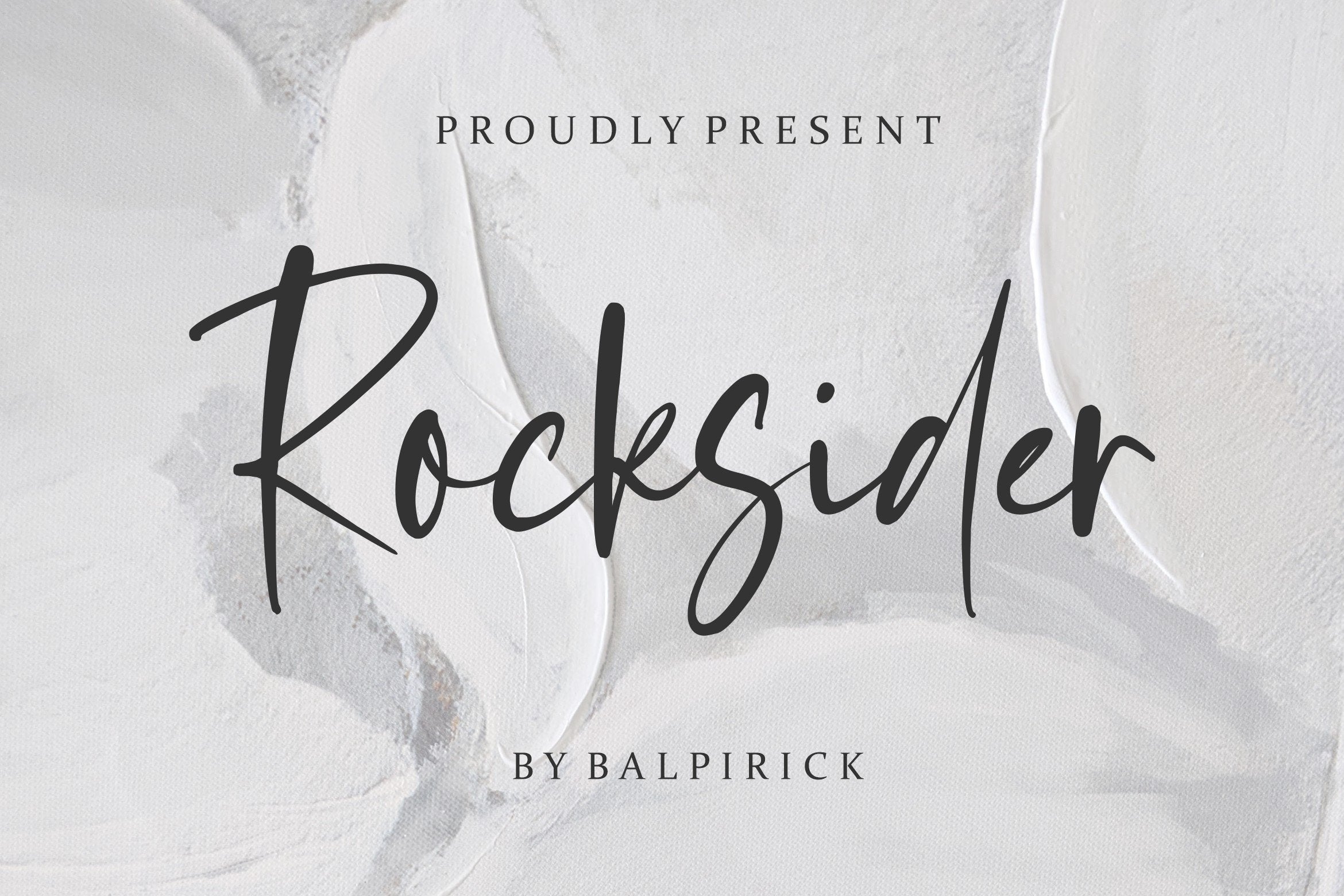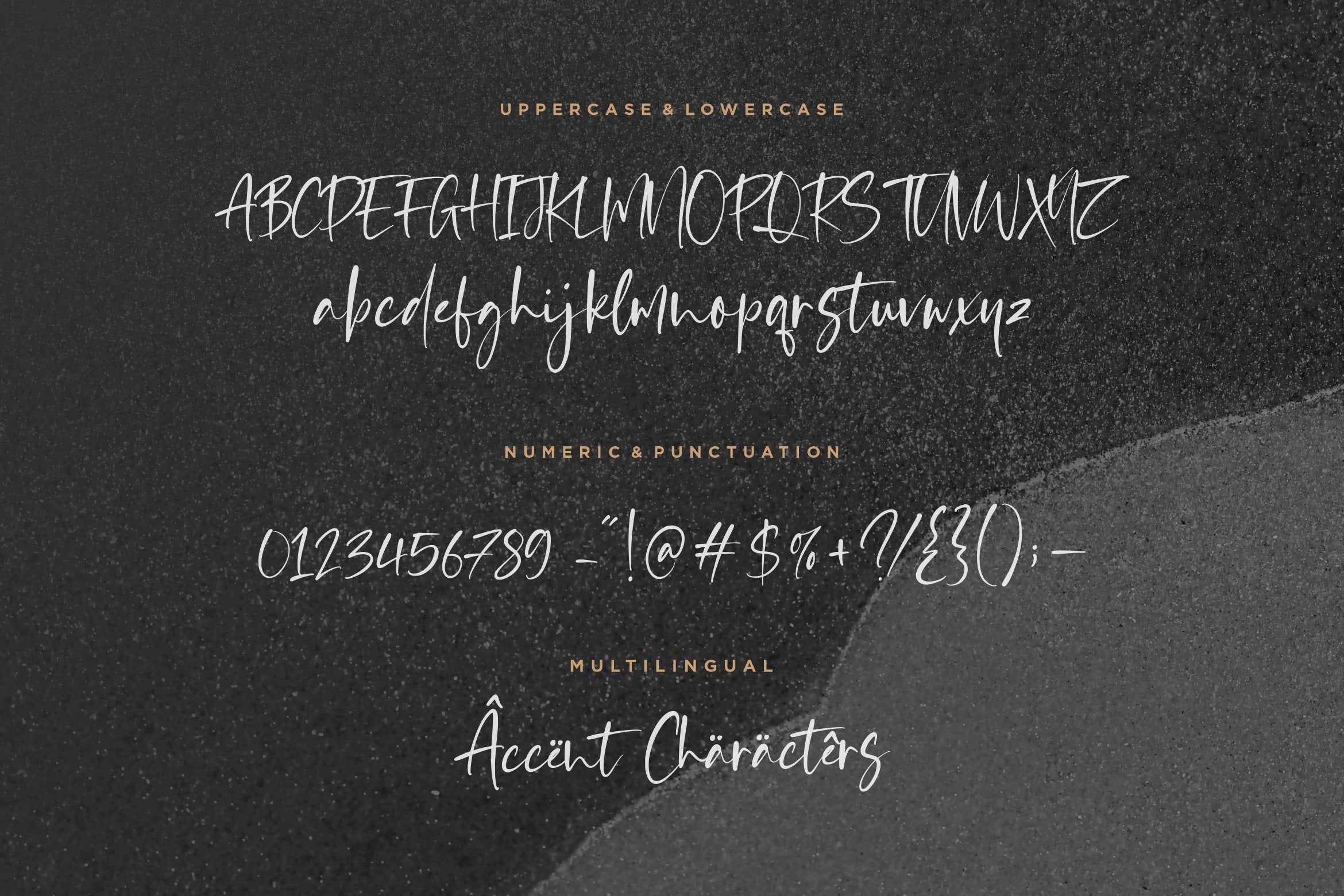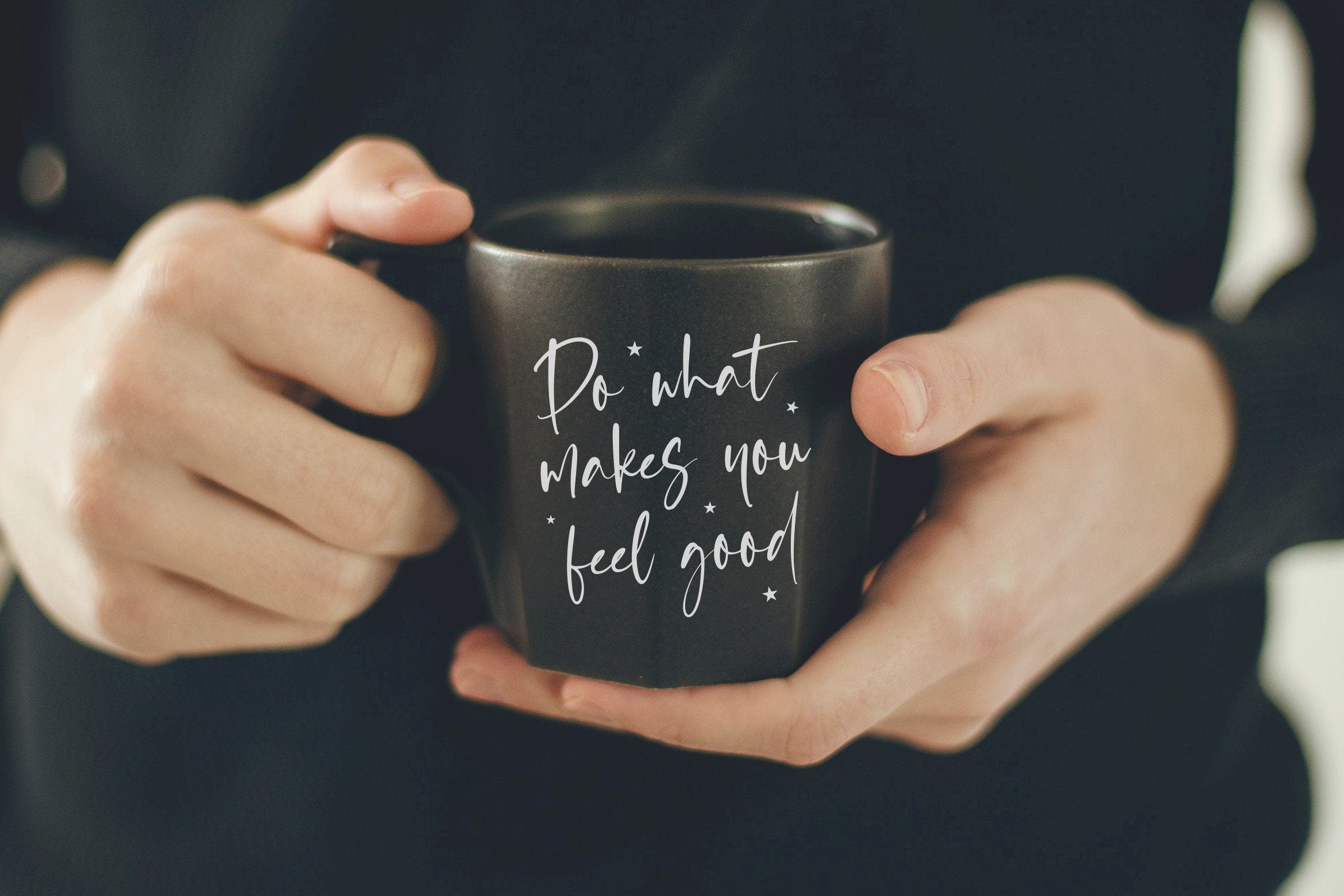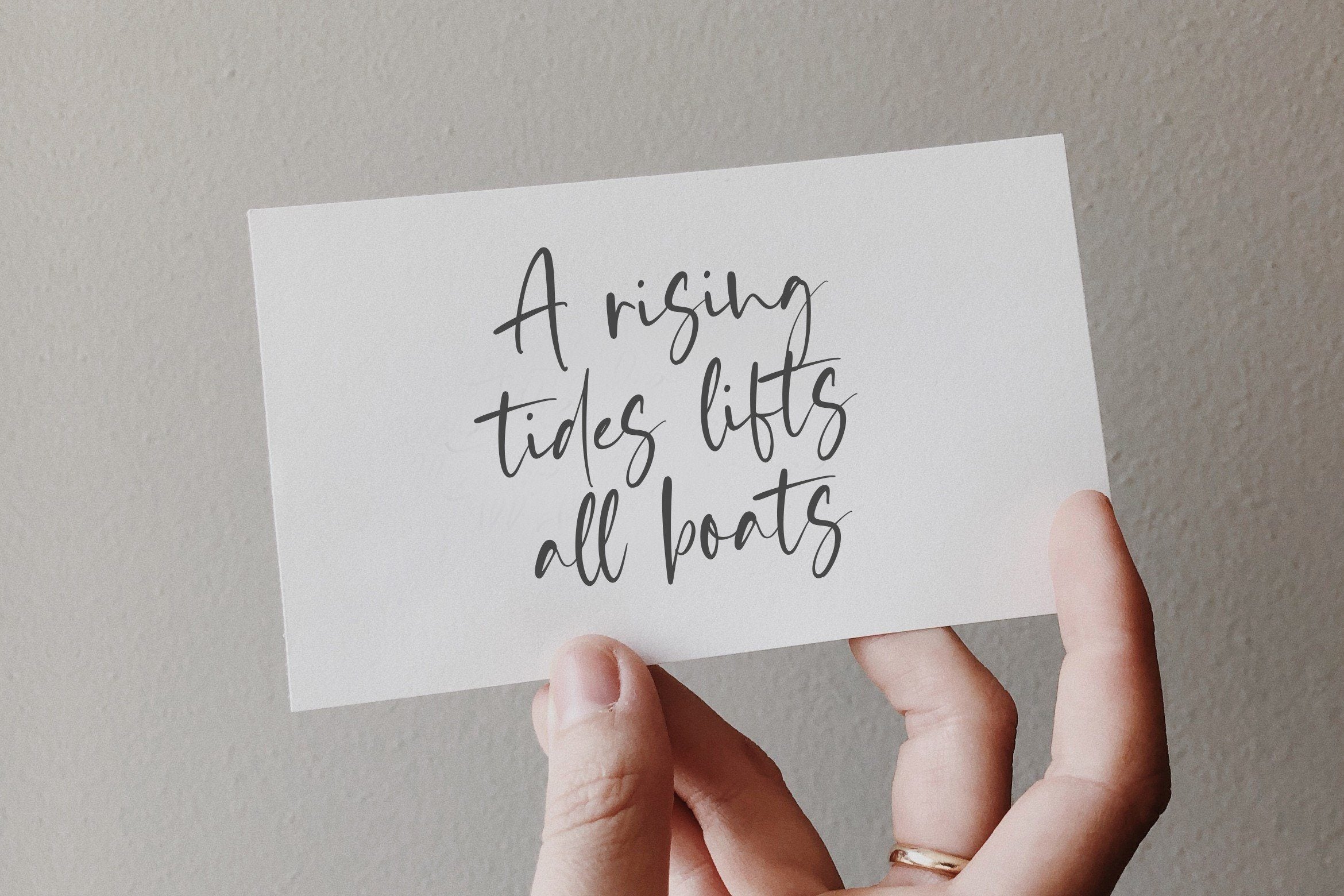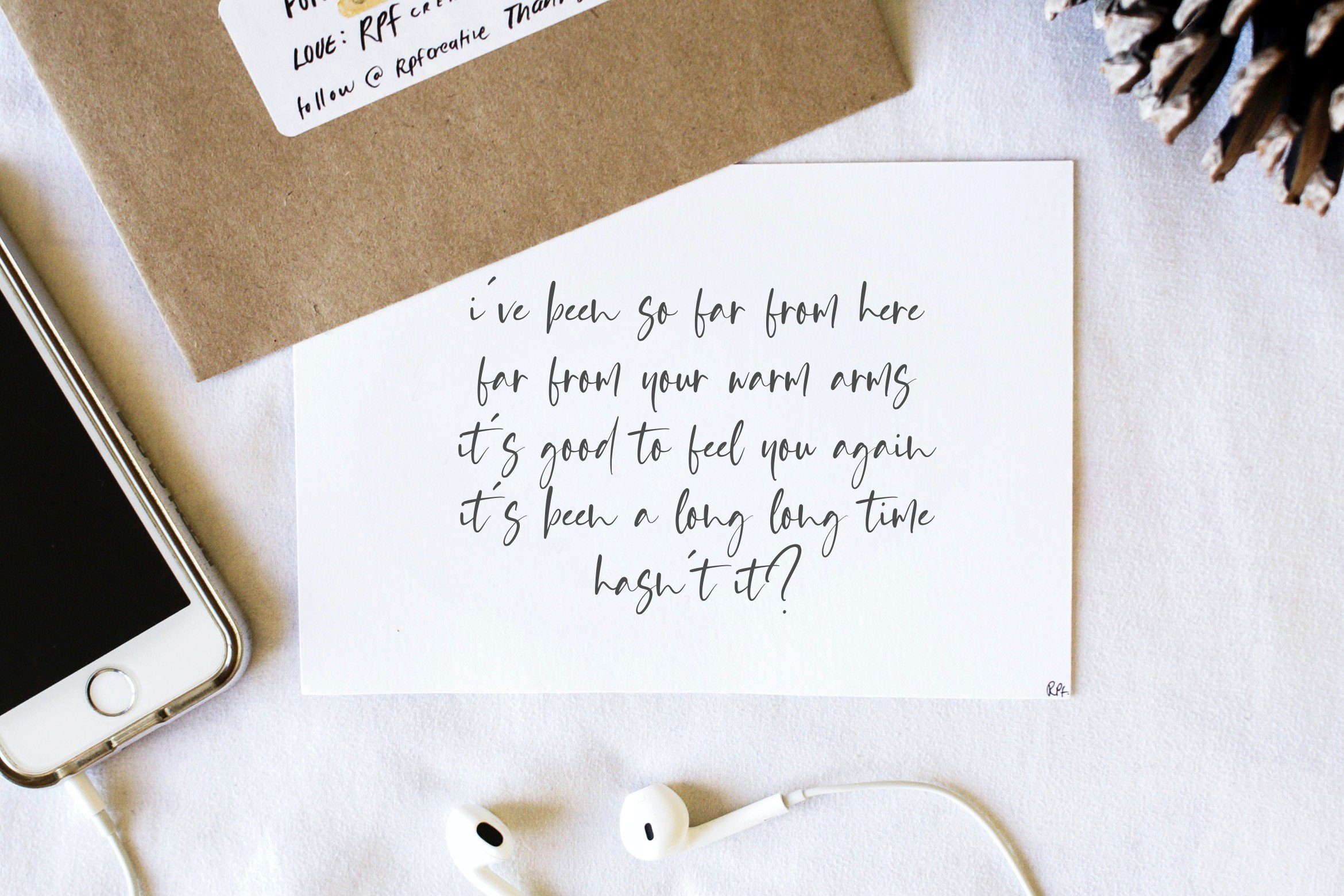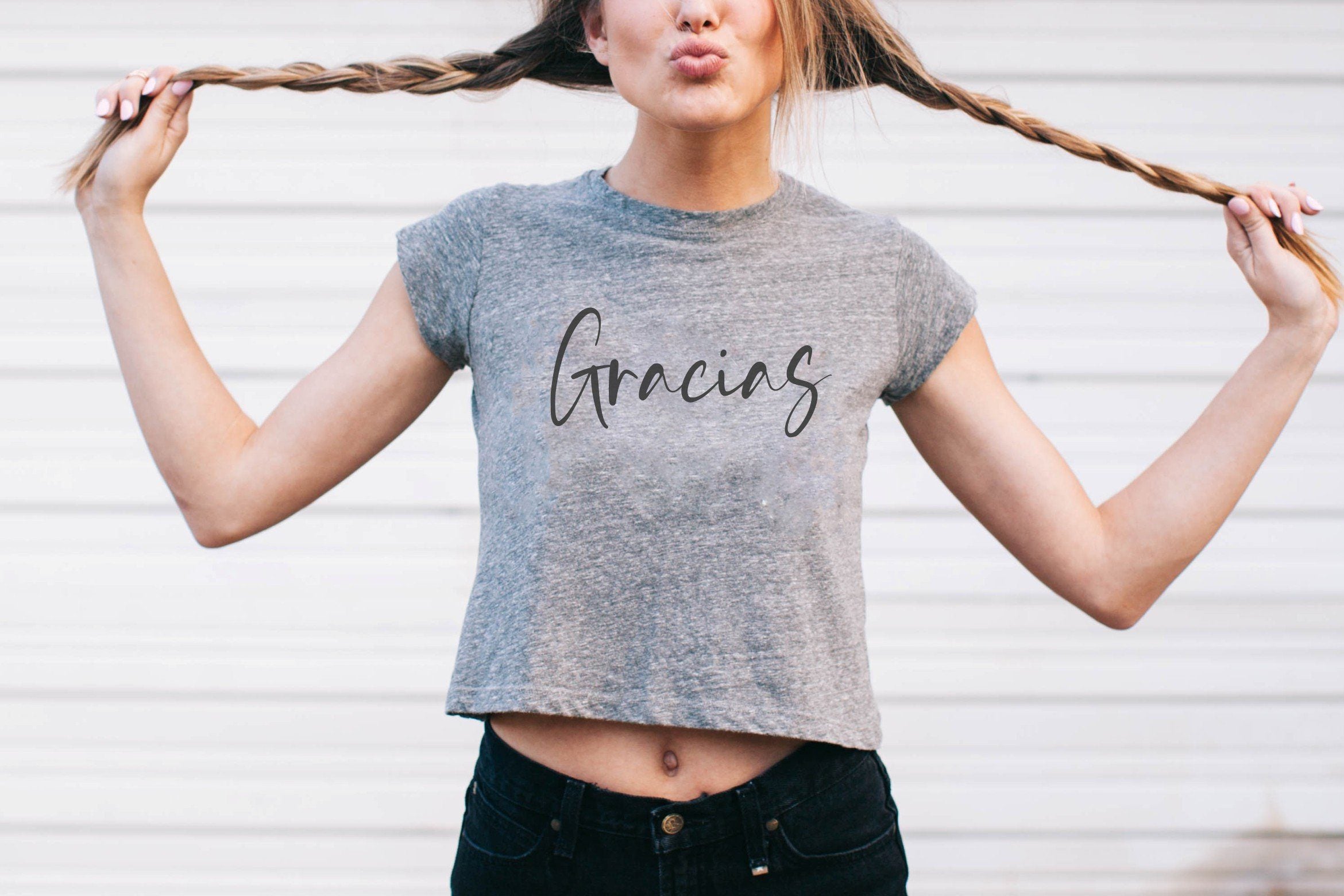
About Rocksider Modern Handwritten Font
Introducing by Balpirick Studio. Proudly Present, Rocksider Font. Rocksider is a Modern Handwritten Font. Rocksider is a stylish, cool and casual looking handwritten font. It has a classy, elegant and modern look that can be used for logos, branding, invitations, stationery, wedding designs, social media posts, and much more! This font includes TTF, OTF and WOFF, Rocksider also multilingual support. Enjoy the font, feel free to comment or feedback, send me PM or email. Thank you!